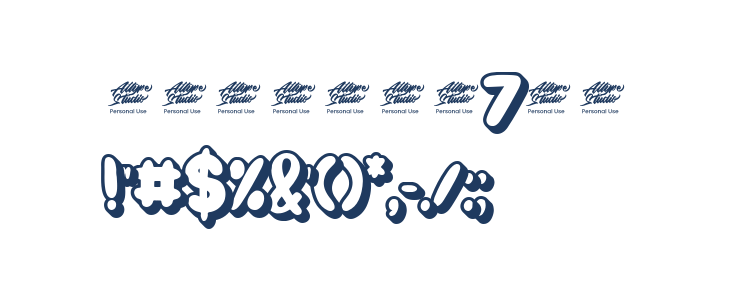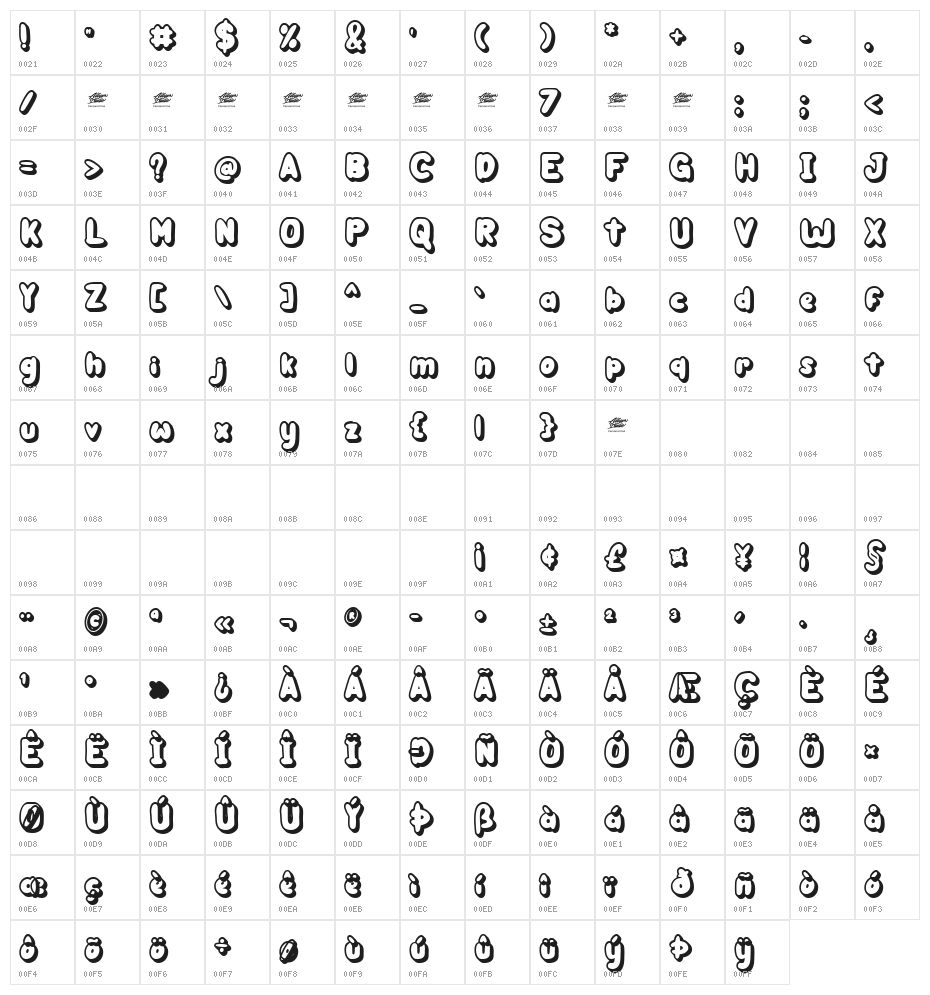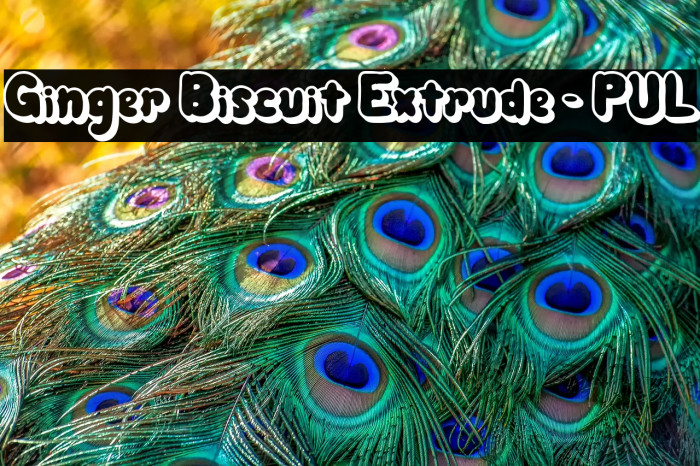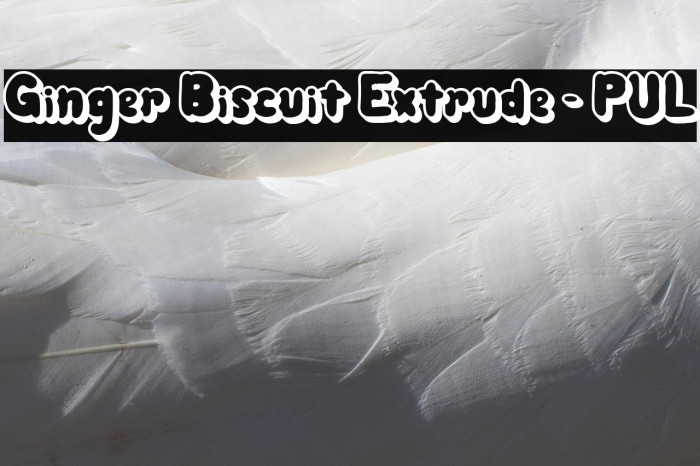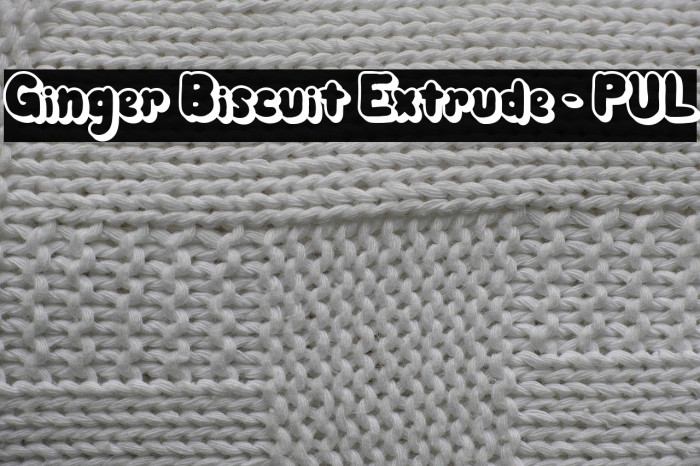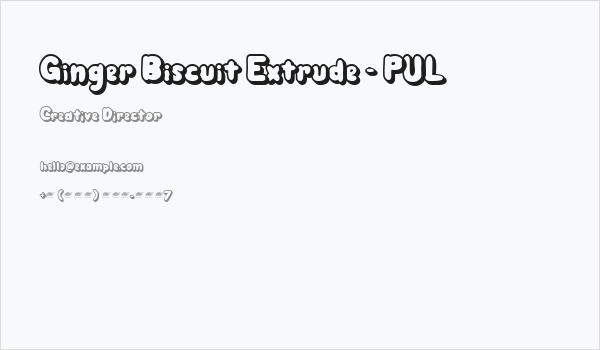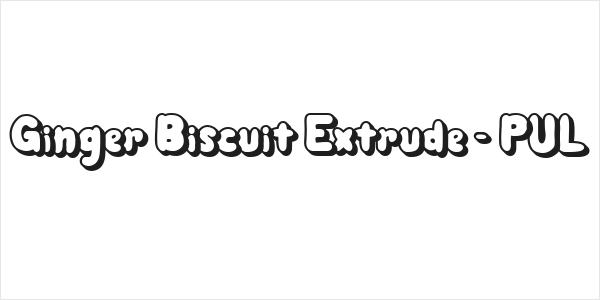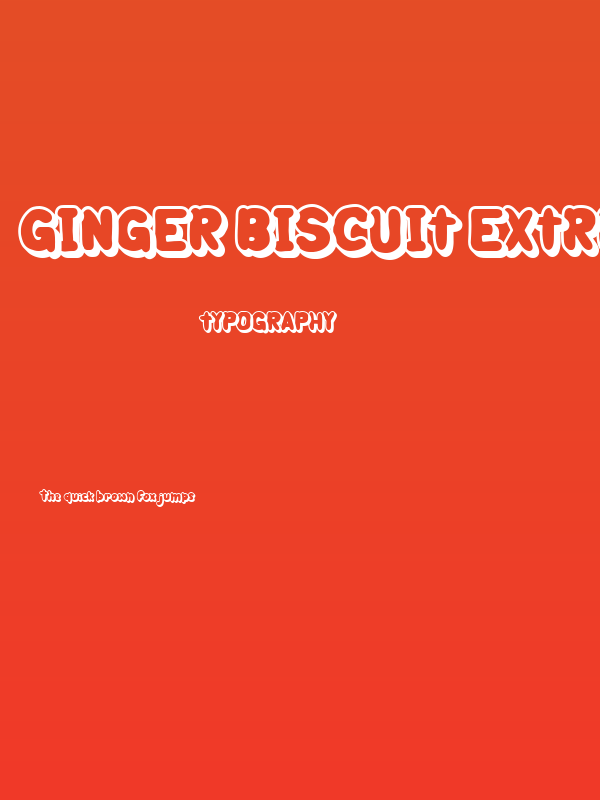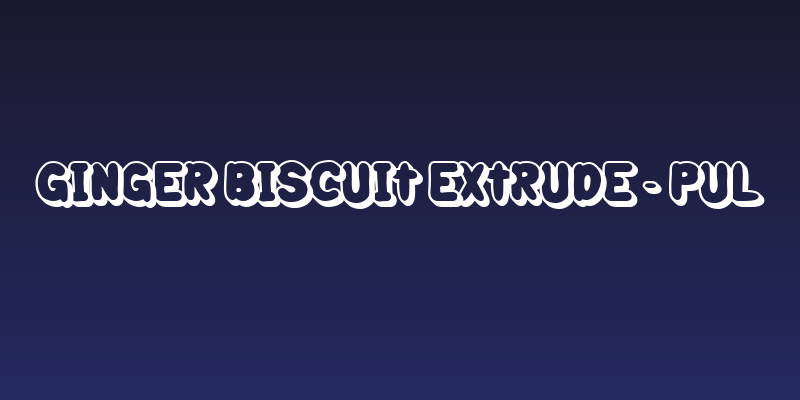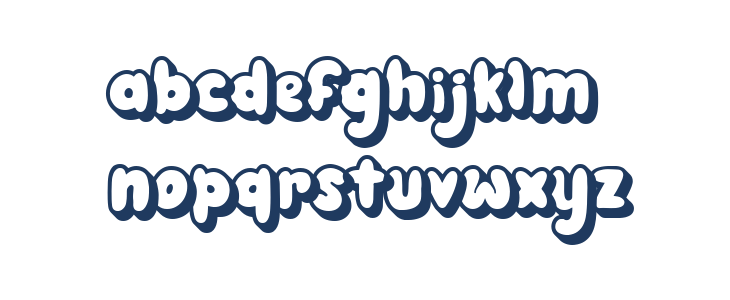
Ginger Biscuit Extrude - PUL Font
Ginger Biscuit Extrude - PUL Description
This playful and bold font features a thick, rounded style with a 3D extruded effect that gives it a fun and dynamic appearance. The characters are well-defined with a consistent weight, making them highly legible despite their decorative nature. The font's bubbly and cartoonish style is accentuated by the shadow effect, which adds depth and a sense of movement. It is ideal for projects that require a lively and engaging typeface, such as children's books, party invitations, or playful branding. The font includes a full set of uppercase and lowercase letters, numbers, and a variety of special characters, ensuring versatility in its application.
| Overall Style | Playful, Cartoonish |
| Proposed Projects | Ideal for children's books, party invitations, playful branding, and any project needing a lively typeface. |